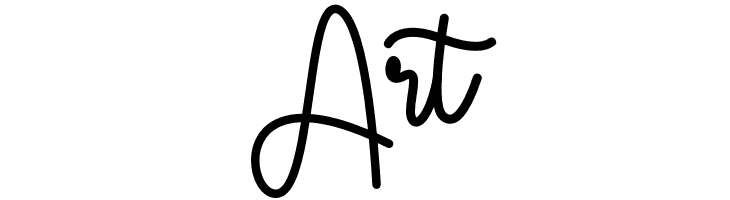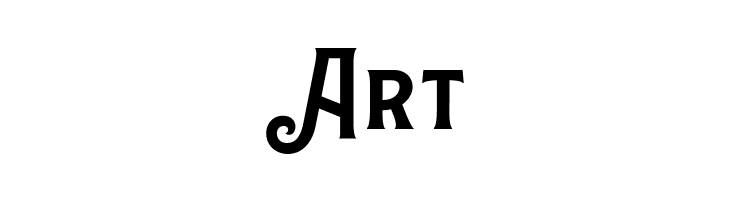
A decorative illustrated font featuring cangaceiro figures for each character.
A playful, flowing script font with elegant loops and a handwritten quality.
An elegant and flowing script font with smooth, cursive strokes.
A flowing, cursive font with elegant loops and swashes.
A modern, elegant font with tall, slender characters and artistic flair.
A distressed, grunge-style font with a textured, vintage appearance.
A decorative and bold font with ornate uppercase and straightforward lowercase letters.
A traditional blackletter font with ornate, angular designs and Gothic flourishes.
A bold, distressed font with jagged edges and a grunge-like, rebellious aesthetic.